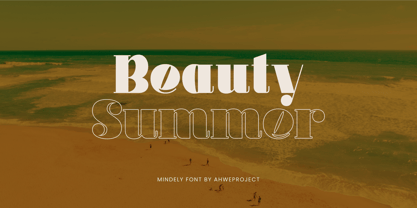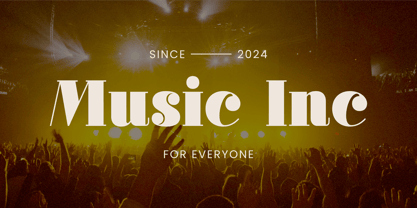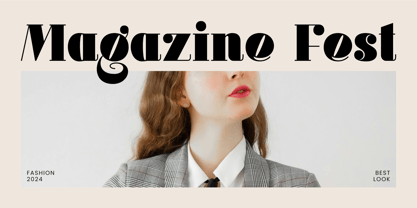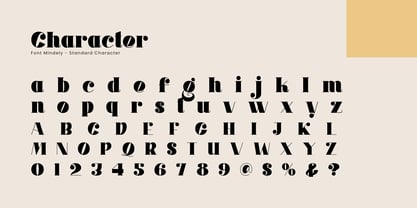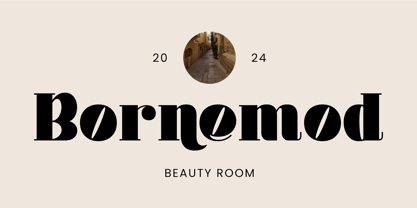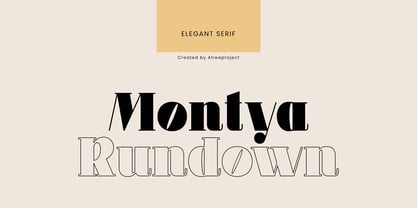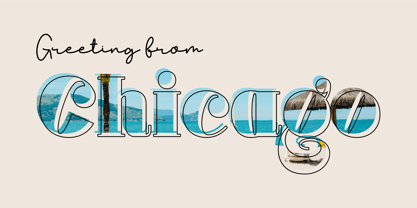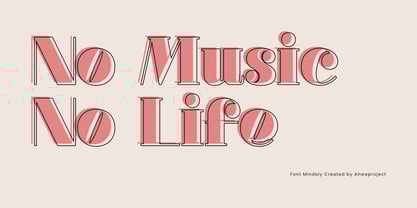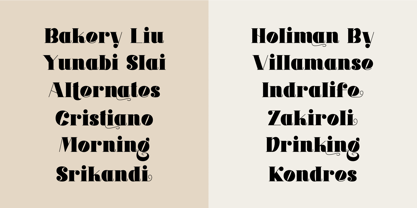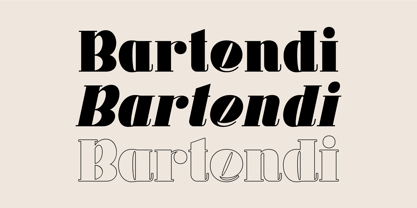
Mindely
by ahweproject
The Mindely Font Family was designed by Dida Ahluddin and published by ahweproject. Mindely contains 3 styles and family package options. More about this family
Mindely is an elegant serif font family with a display modern style. It is a display font with moderate contrast that is perfect for branding projects, logo, wedding designs, social media posts, advertisements, product packaging, product designs, label, photography, watermark, invitation, stationery, and any projects, it makes with a high level of legibility.
Designers: Dida Ahluddin
Foundry: ahweproject